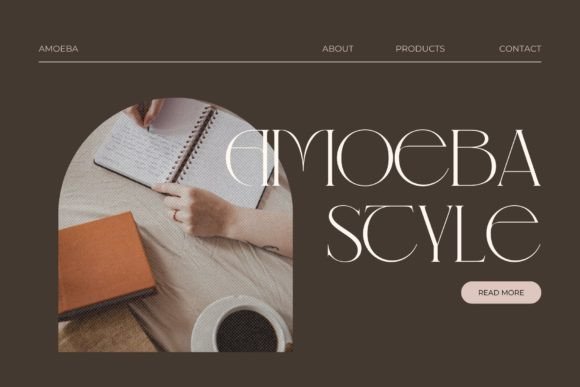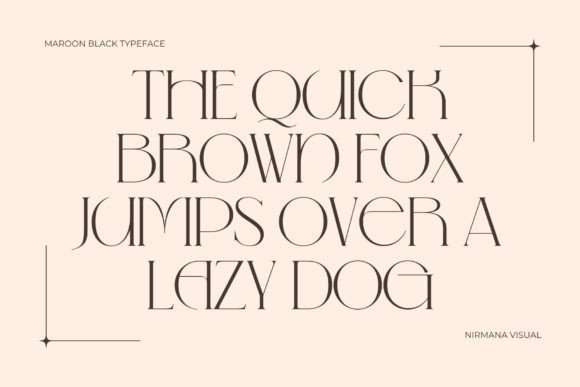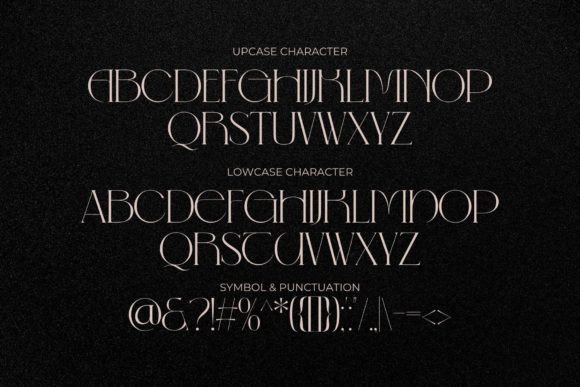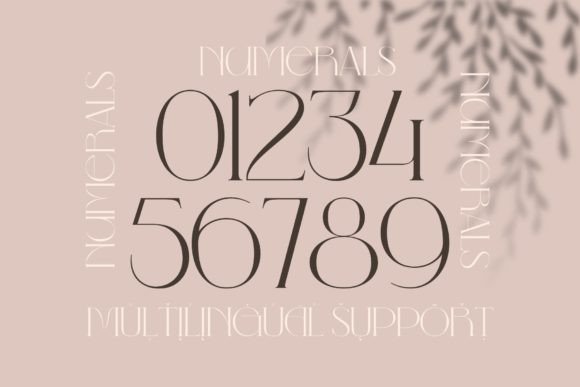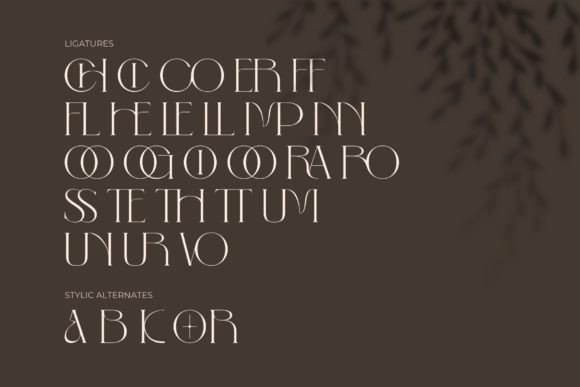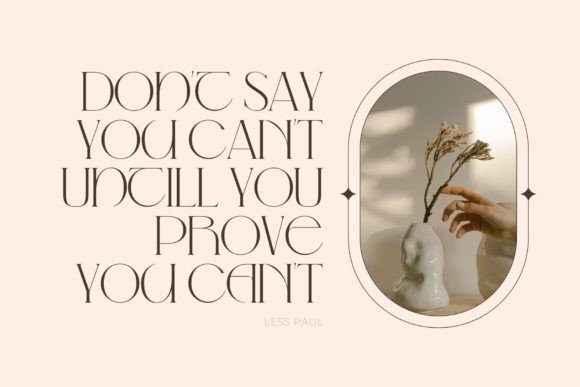
Introduction to Maroon Black Font
Maroon Black inspired by Renaissance Design Era.
Maroon Black offers beautiful typographic harmony for a diversity of design projects, including logos & branding, social media posts, advertisements & product designs .